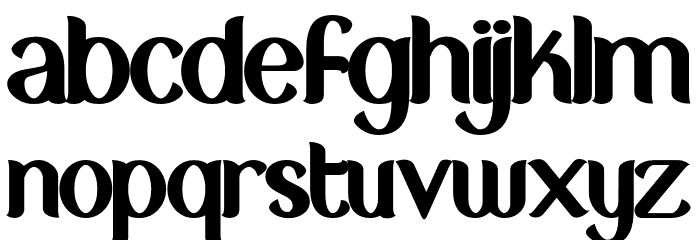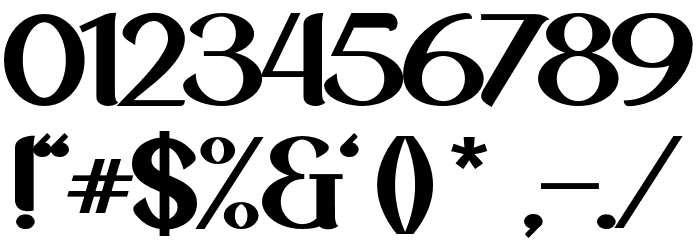
NewCrown-Black_DEMO Font
This font features a bold and striking design with a modern flair. The characters are thick and have a strong presence, making them ideal for capturing attention. The uppercase letters are tall and commanding, while the lowercase letters maintain a consistent weight and style. The numerals are equally bold, ensuring they stand out in any context. Special characters are designed with the same boldness, providing a cohesive look across all elements. The overall style is decorative, with a slight vintage touch, making it suitable for creative and impactful designs.
A bold, decorative font with a modern and slightly vintage style.
- Proposed Projects: Ideal for headlines, posters, branding, and any project requiring a strong visual impact.
- Overall Style: Modern, Decorative